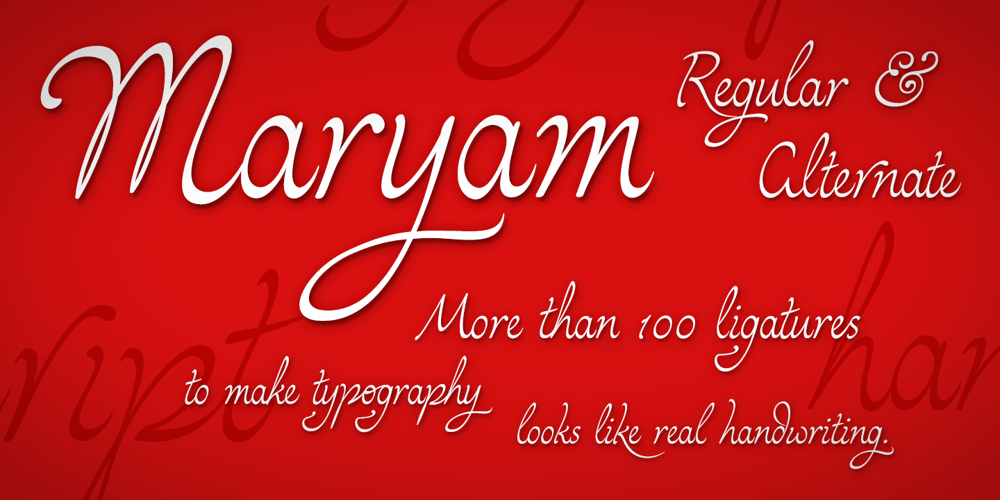
Maryam
Maryam font
Maryam Font Family was designed by Ricardo Esteves Gomes and published by Outras Fontes. Maryam contains 2 styles and family package options. Maryam is an Outras Fontes type family designed by Ricardo Esteves Gomes. With moderate contrast, these fonts have elegant and very legible forms even in small x-height sizes. There are more then 70 ligatures in each font, providing a lot of letterform variations that make this type family looks like a real handwriting on a page. It is currently available in two versions (Regular and Alternate) that you can combine with each other as you wish.